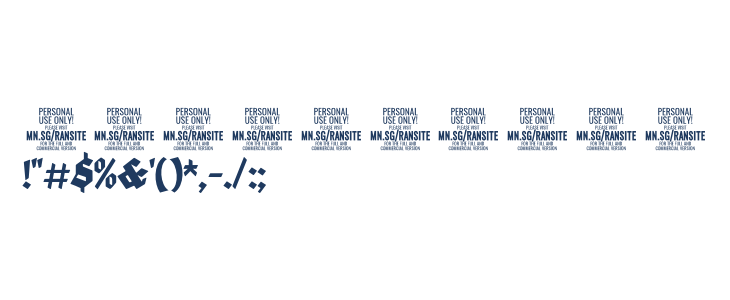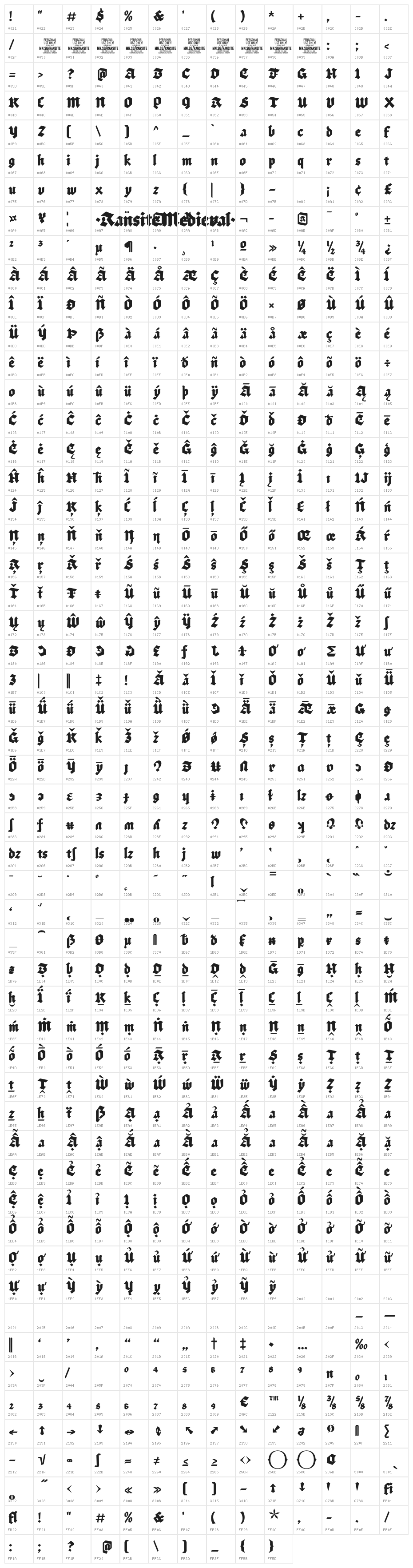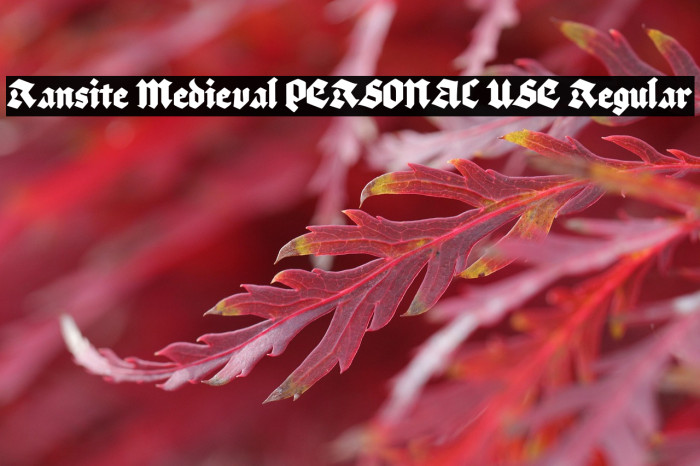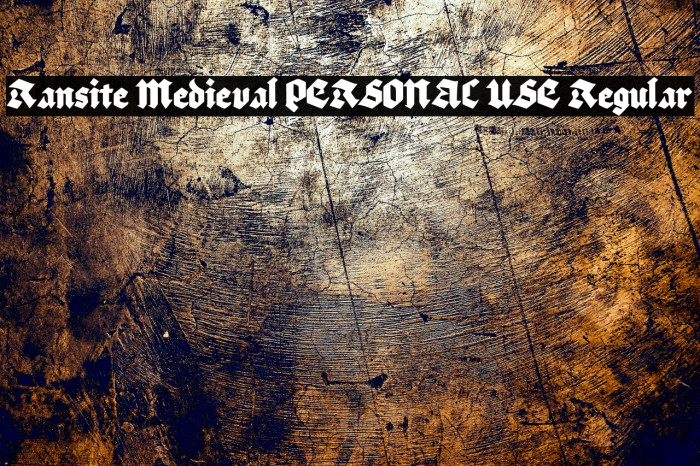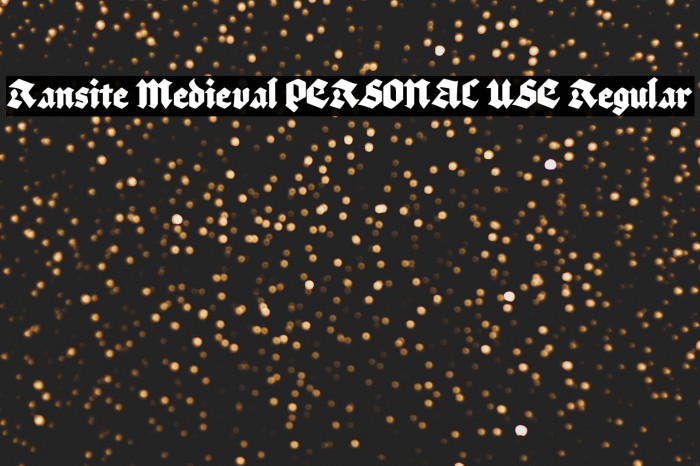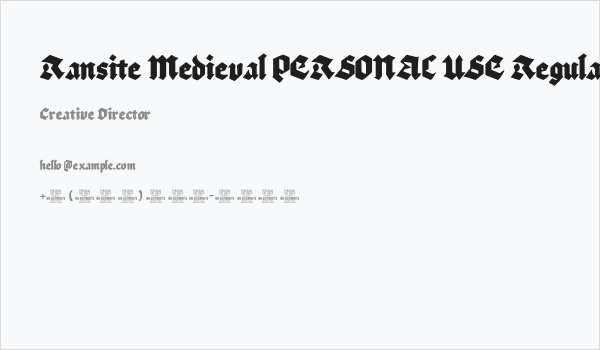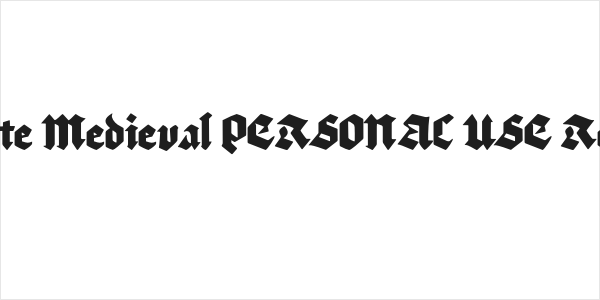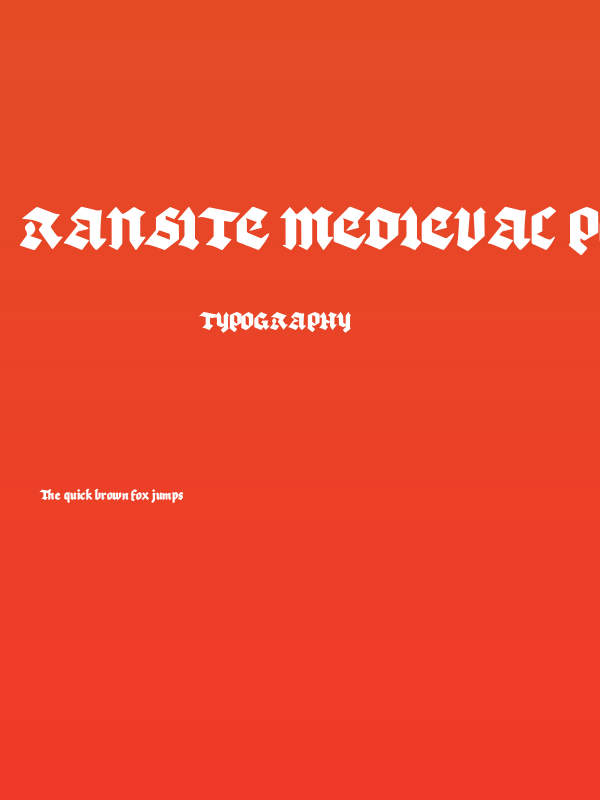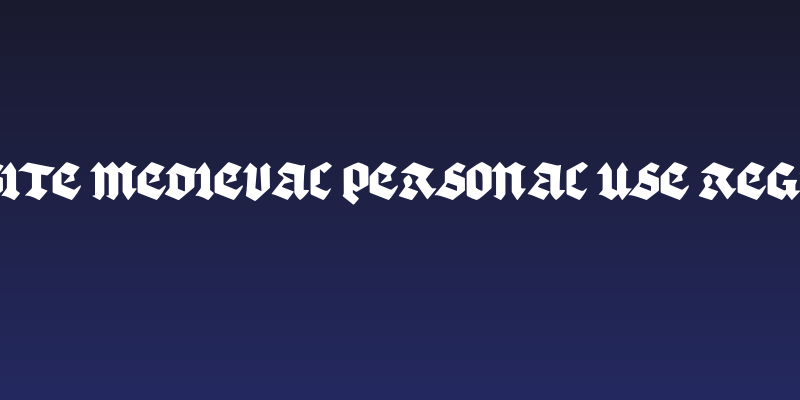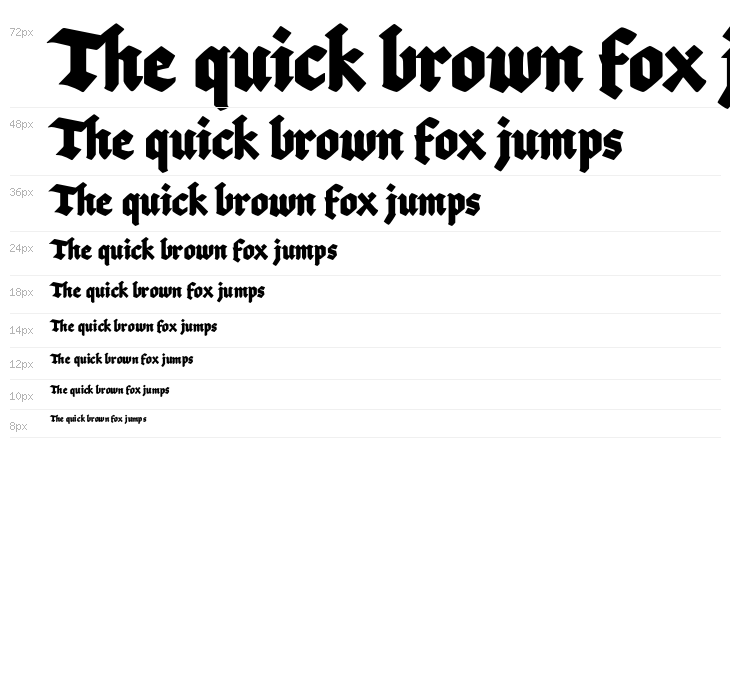
Ransite Medieval PERSONAL USE Regular Font
Ransite Medieval PERSONAL USE Regular Description
This font exudes a strong medieval aesthetic, characterized by its bold, angular strokes and intricate detailing reminiscent of Gothic script. The uppercase letters are particularly striking, with sharp edges and dramatic flourishes that evoke a sense of historical grandeur. The lowercase letters maintain this theme, offering a cohesive look that is both decorative and legible. The numerals and special characters are designed with the same attention to detail, ensuring consistency across all elements. This font is ideal for projects that require a touch of antiquity and elegance, such as historical documents, themed event invitations, or fantasy book covers.
| Overall Style | Medieval, Decorative |
| Use Case | Headlines, Logos, Decorative text |
| Proposed Projects | Historical documents, themed event invitations, fantasy book covers, medieval-themed designs. |